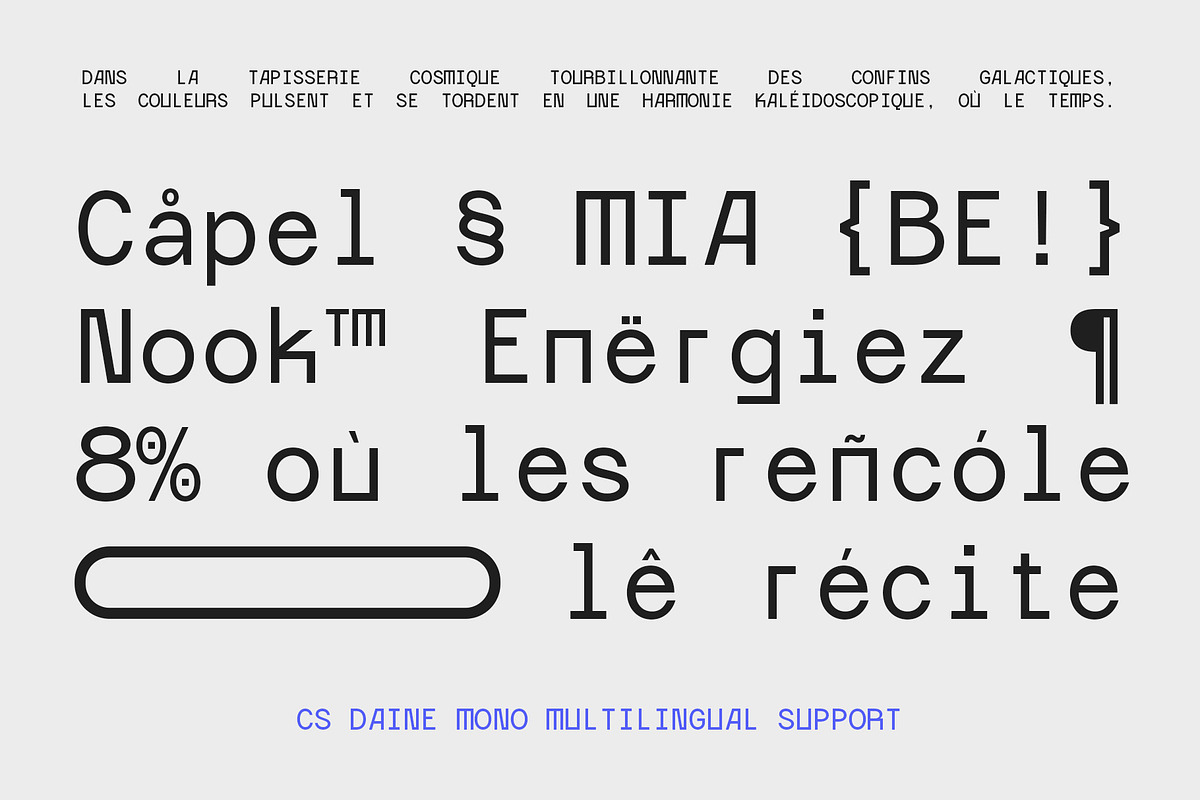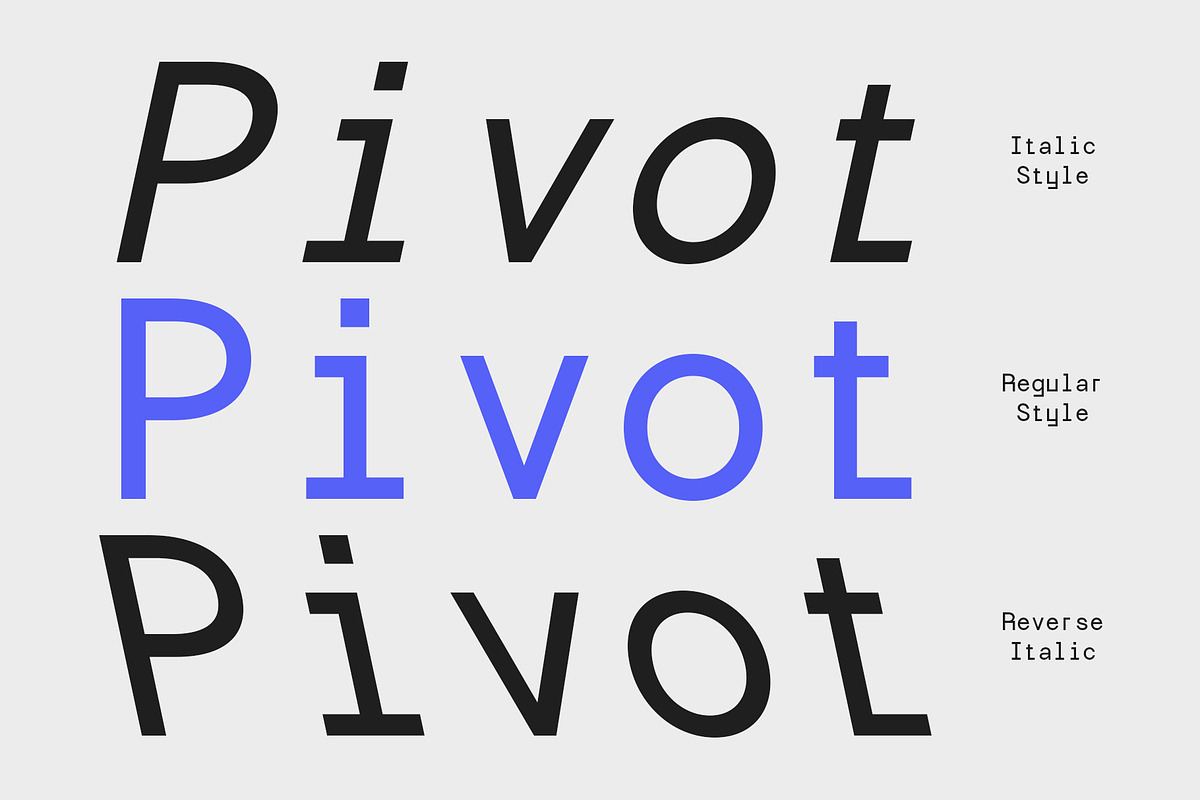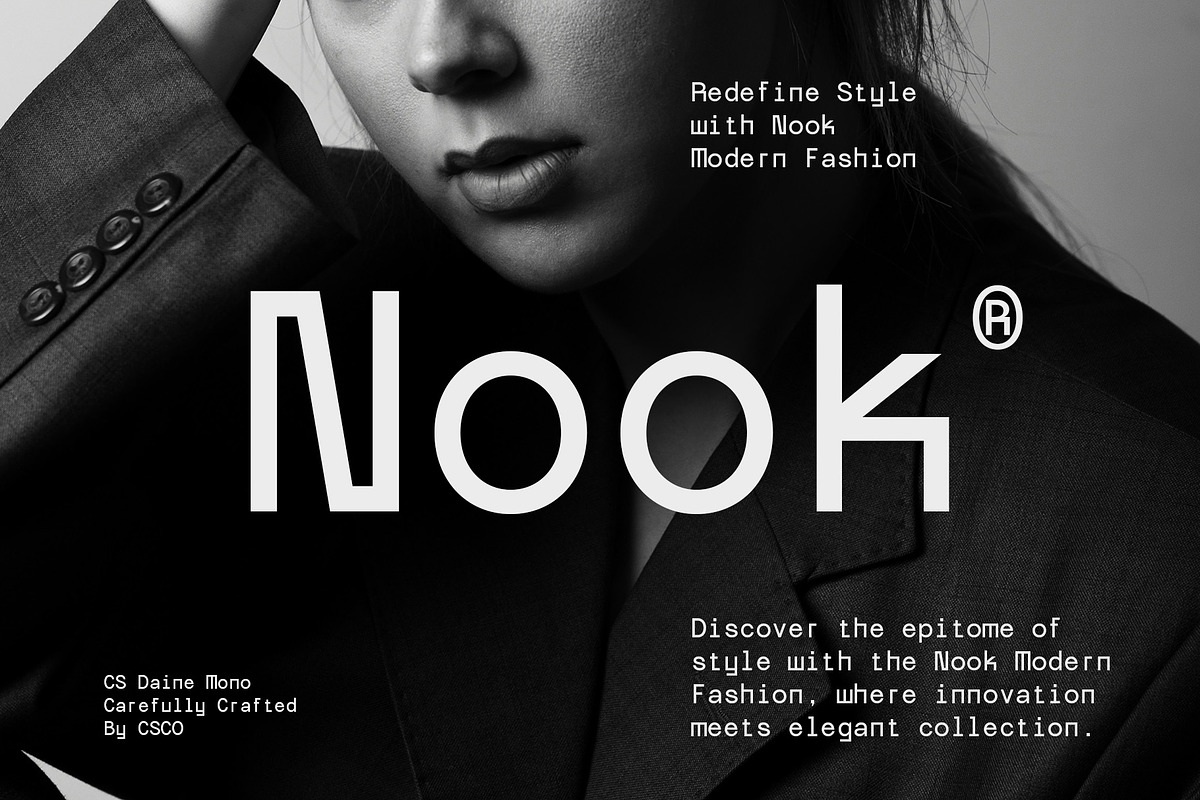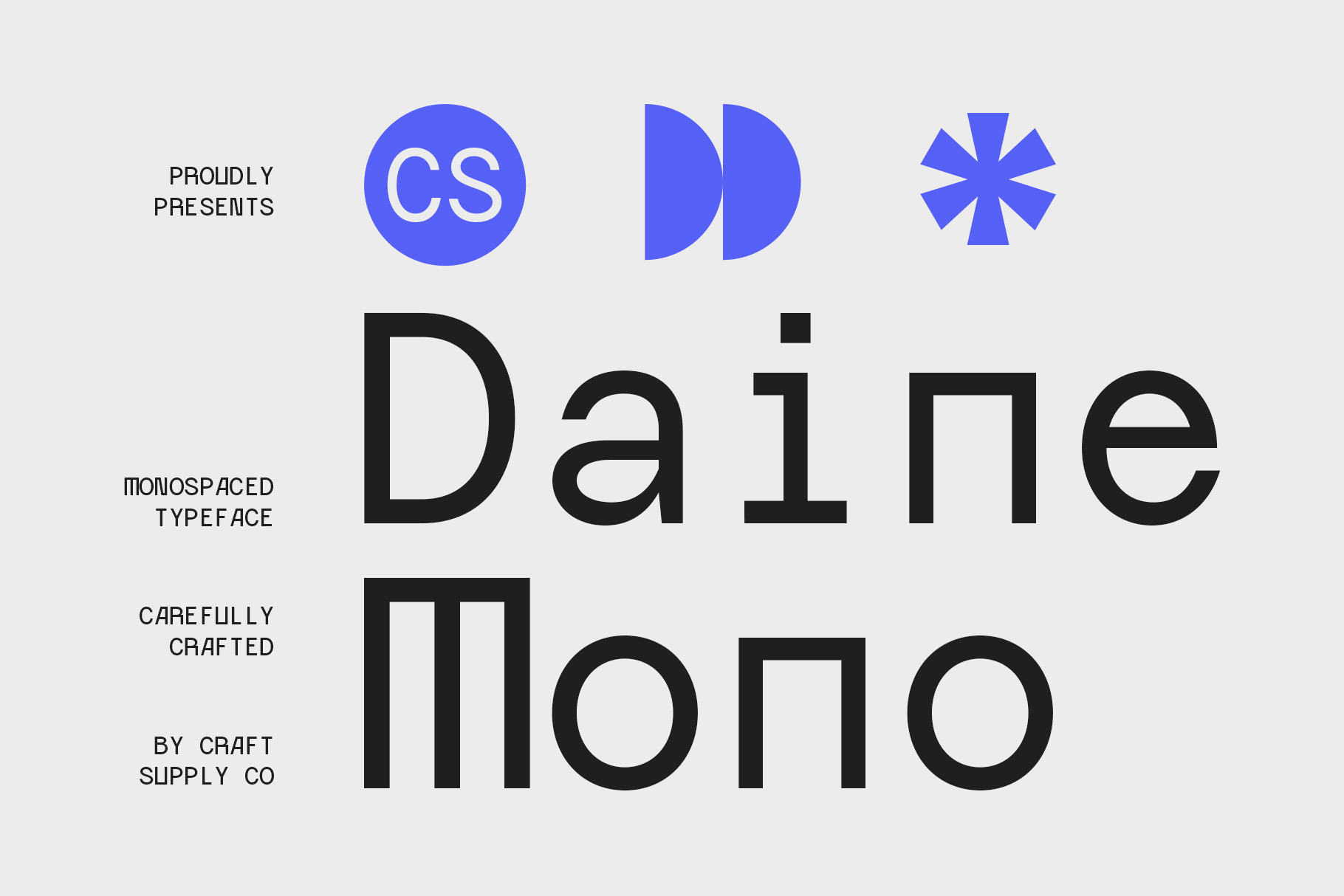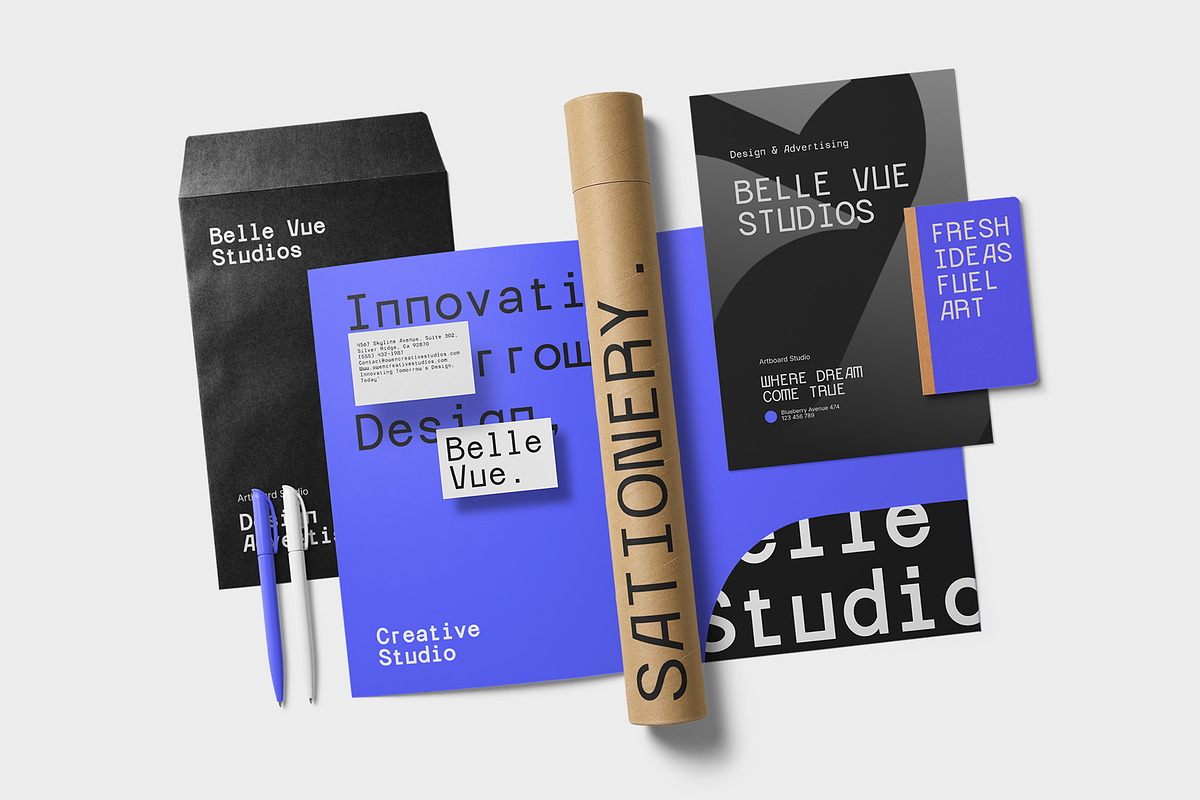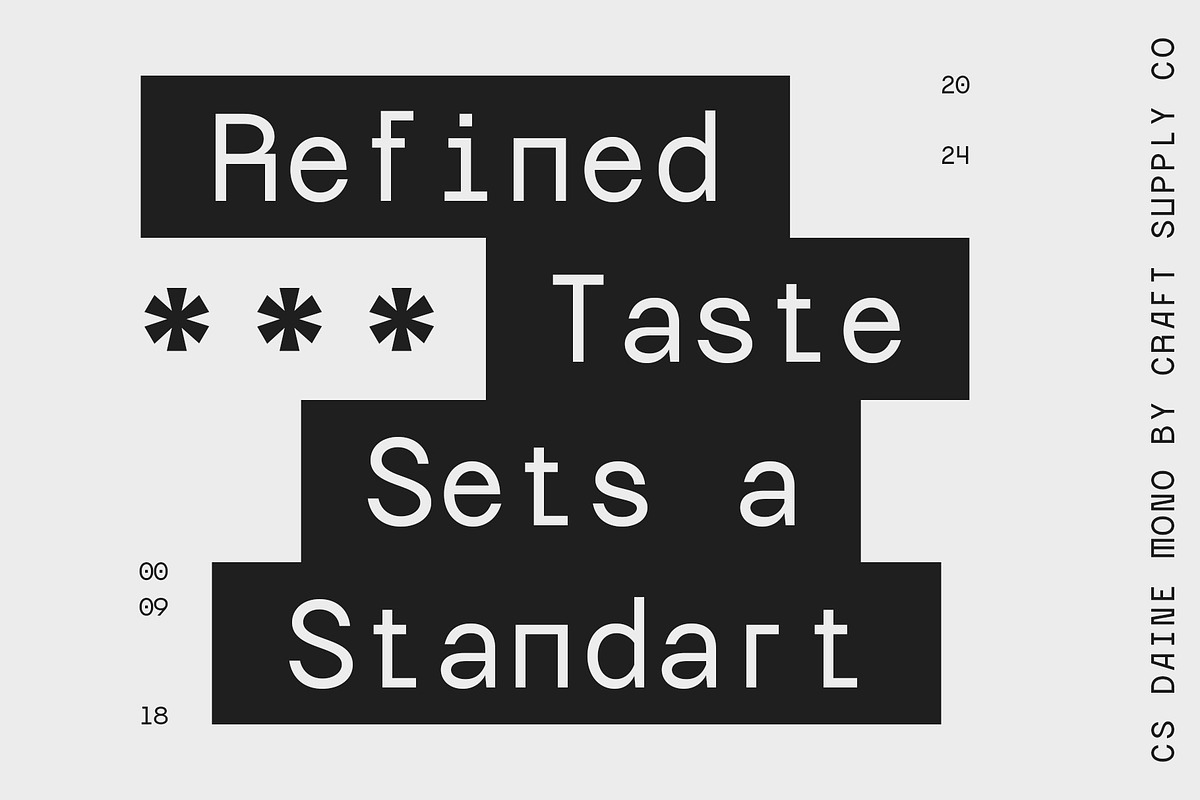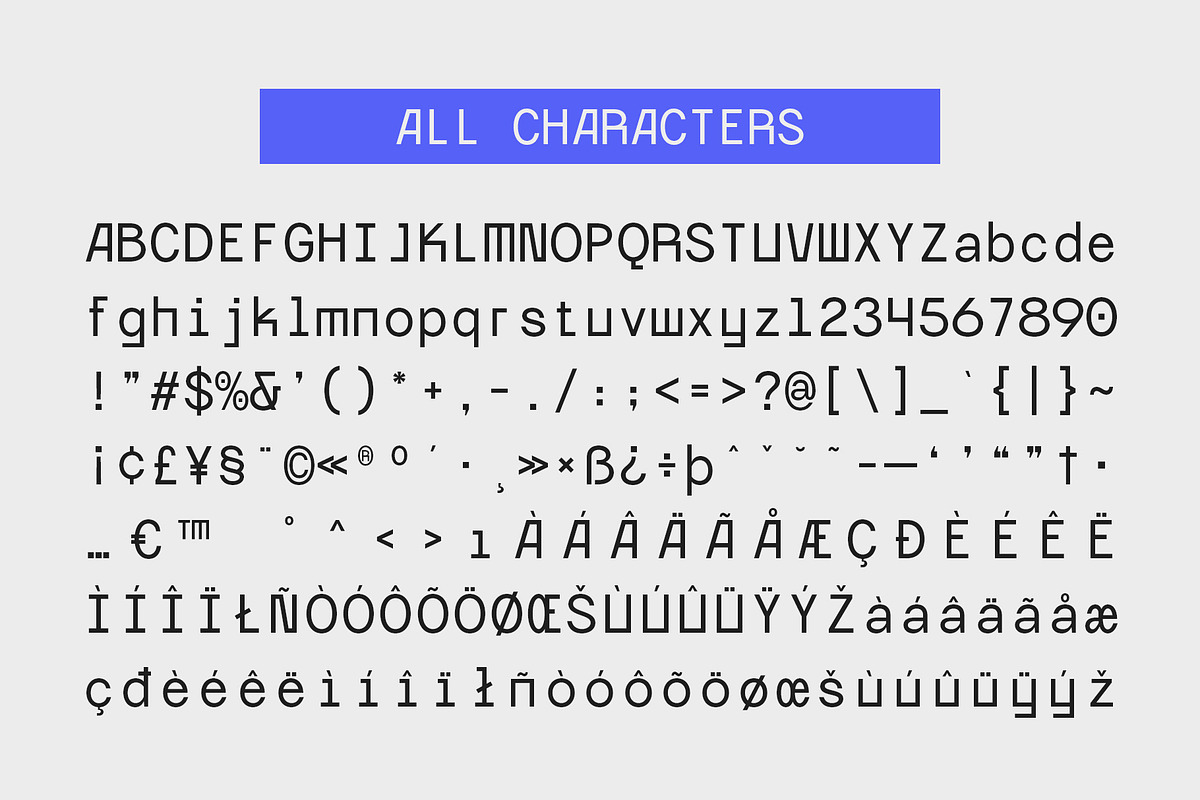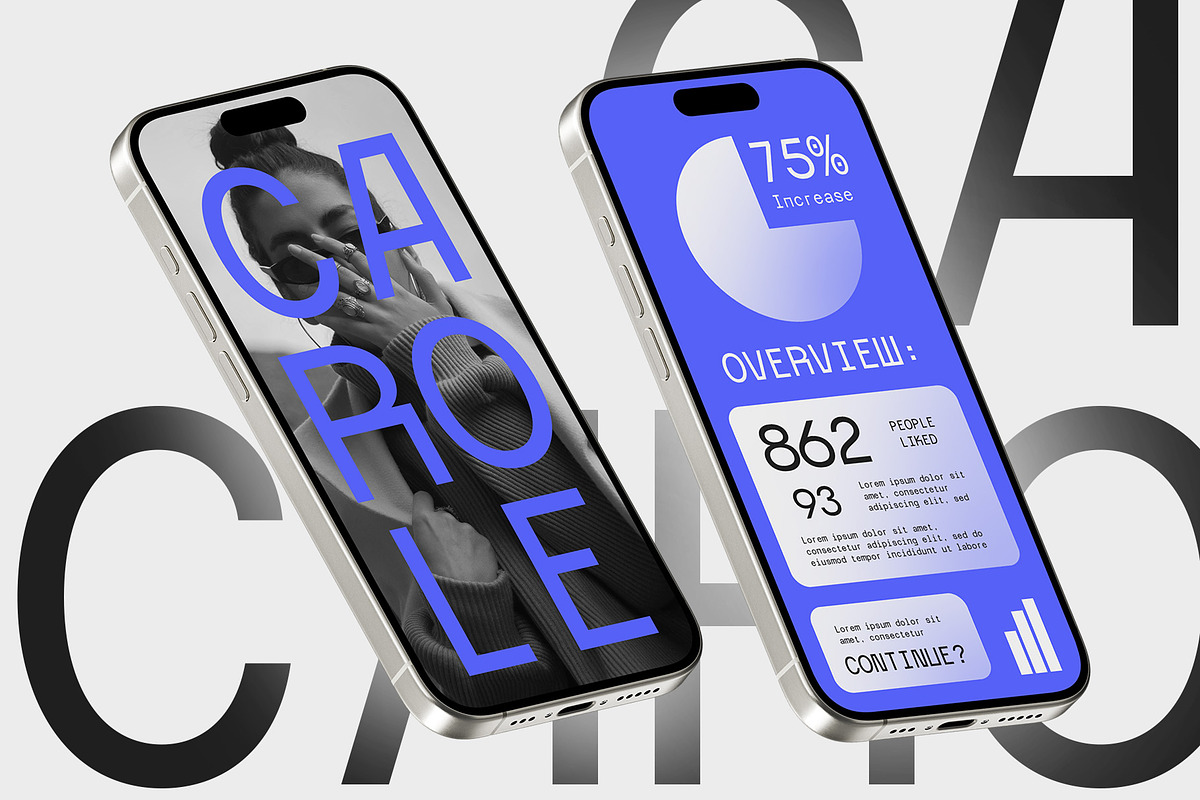
CS Daine Mono – Monospaced Font
CS Daine Monospaced Font: Precision Meets Modern Aesthetics
Monospaced and Geometric Design This modern sans-serif font that showcases a clean, monospaced, and geometric design. Each character is crafted with equal width, resulting in a neat and organized appearance that enhances readability. This thoughtful design makes it an ideal choice for technical contexts, such as programming and coding, where clarity is paramount.
Contemporary and Professional Feel With its geometric shapes defined by straight lines and smooth curves, this monospaced font exudes a contemporary and professional vibe. The minimalist aesthetic aligns perfectly with modern design principles, ensuring that your text communicates effectively without distraction. This font is not just about functionality; it embodies an elegant simplicity that appeals to a wide range of audiences.
Versatile for Technical Applications Commonly used in software applications, code editors, and graphic design projects that require high readability, this monospaced font stands out as a reliable choice. Its monospaced structure makes it particularly suited for environments where alignment and uniformity are crucial, ensuring that your designs maintain a polished and professional look.